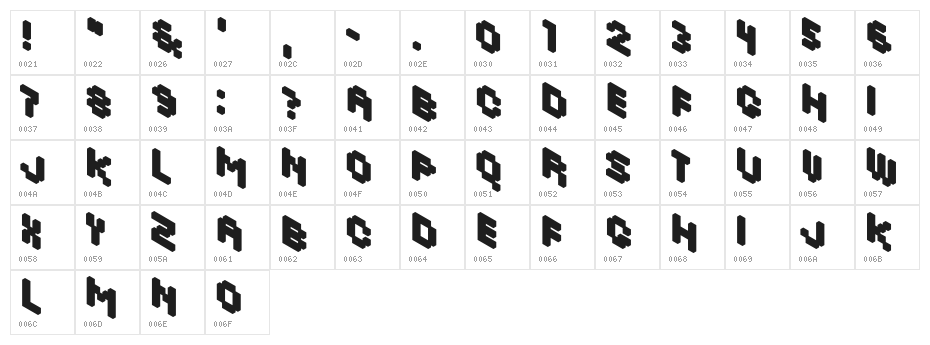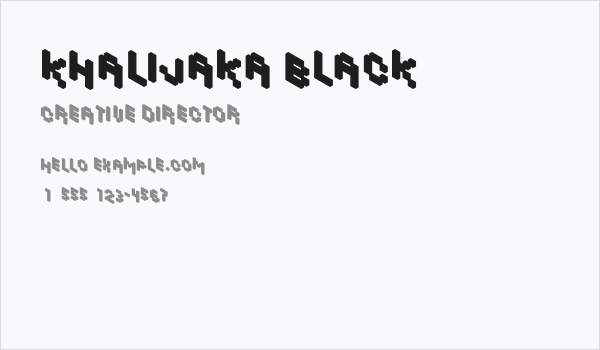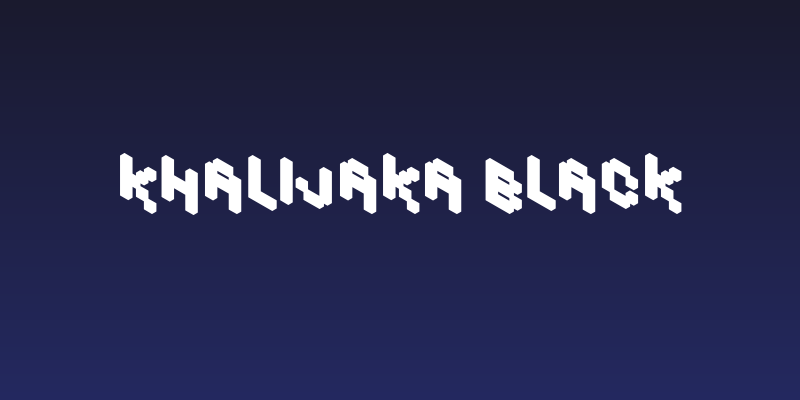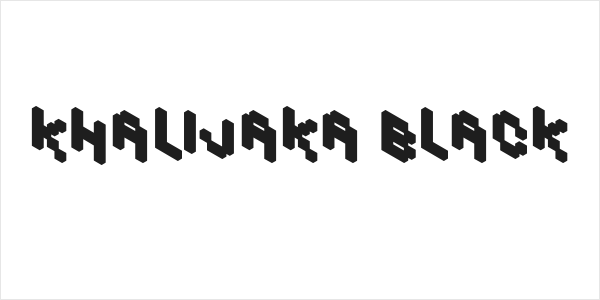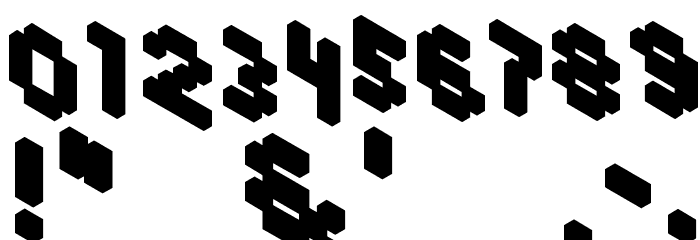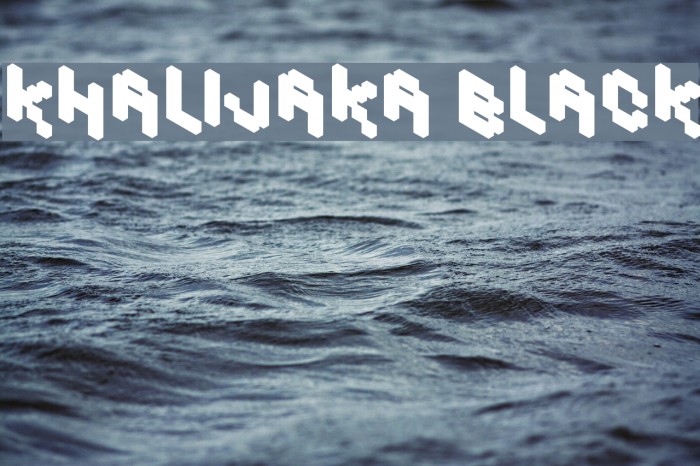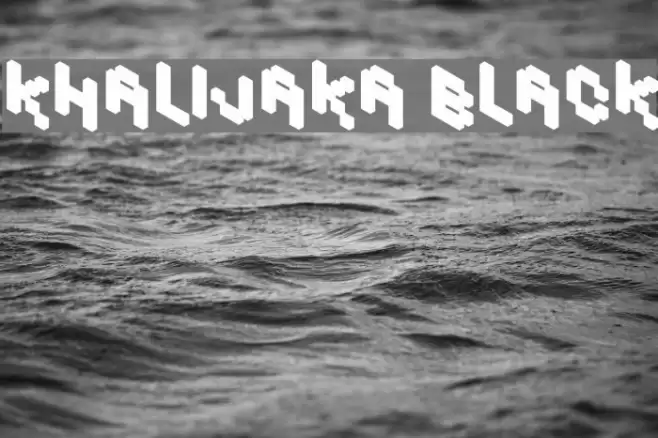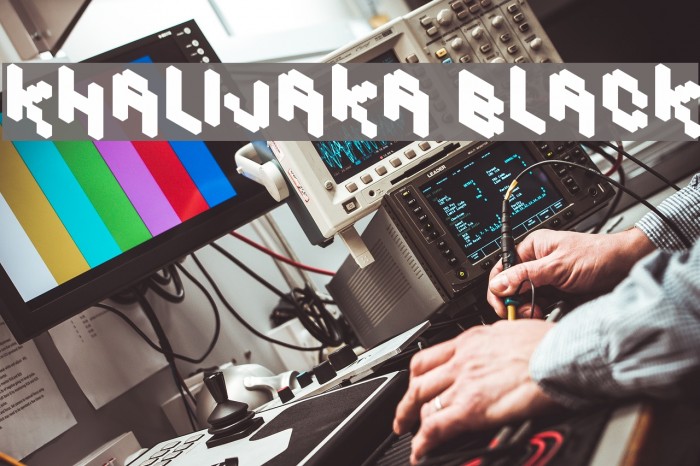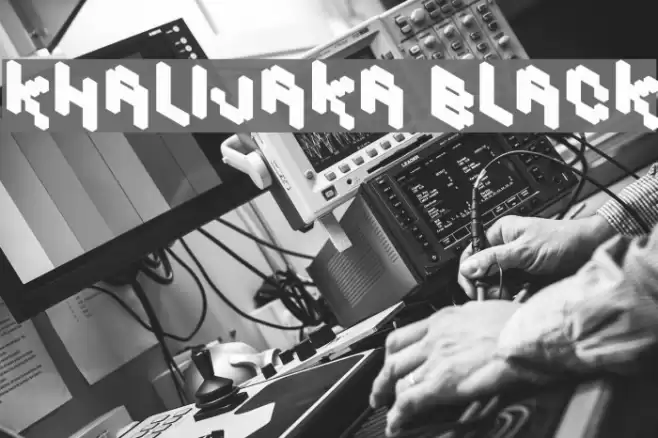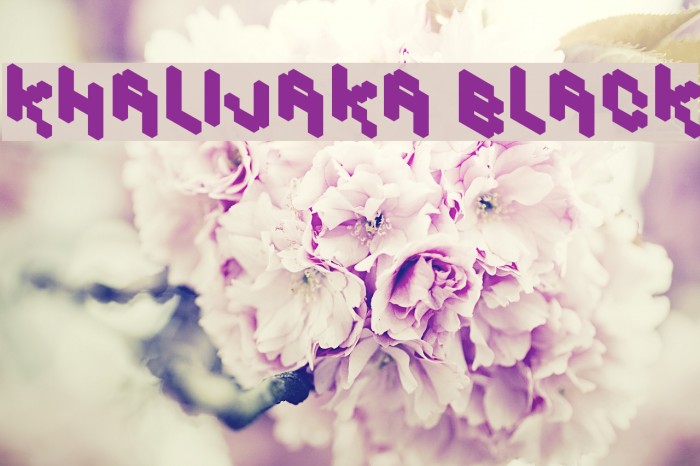
Khalijaka Black Font
Khalijaka Black Description
This font features a bold, three-dimensional design with a blocky, geometric style. Each character appears to be constructed from solid shapes, giving it a strong and impactful presence. The letters are uniformly thick, with sharp angles and a consistent depth that creates a shadow effect, enhancing the 3D illusion. The font's unique structure makes it highly distinctive and eye-catching, suitable for projects that require a modern and edgy aesthetic. The characters are tightly spaced, contributing to its compact and cohesive appearance.
| Proposed Projects | Ideal for video game titles, posters, logos, and any design needing a modern, impactful look. |